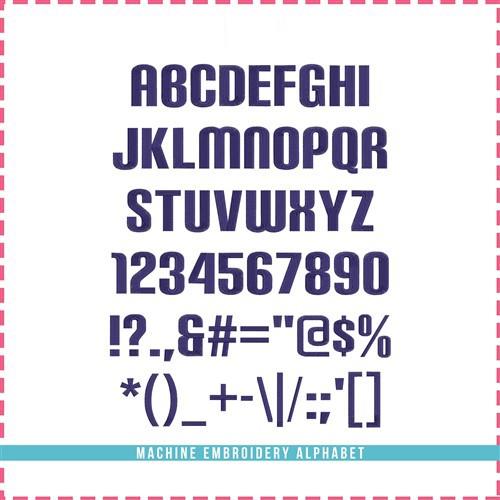
Maya Kreations is happy to present Carbon Font Embroidery Font - Bold Block Style - 15 Sizes 0.5" To 7" - PES, DST & 8 formats machine embroidery font which has Bold block style machine embroidery font ideal for vibrant apparel and accessories. Perfect for use on jackets or bags, it's available in PES, DST, and 8 additional formats. included. If you would like to view more embroidery fonts and alphabets please search our embroidery fonts page.